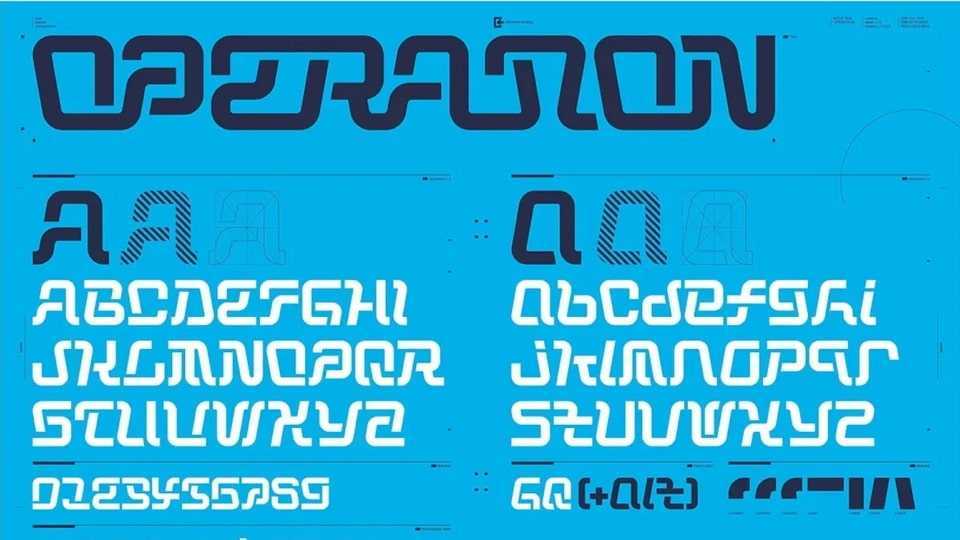
Download Operation font, a futuristic display typeface based on geometric shapes connected with smooth curves. With its unique look Operation font is perfect for logos, posters, games and tech projects.
Designer: NC Empire